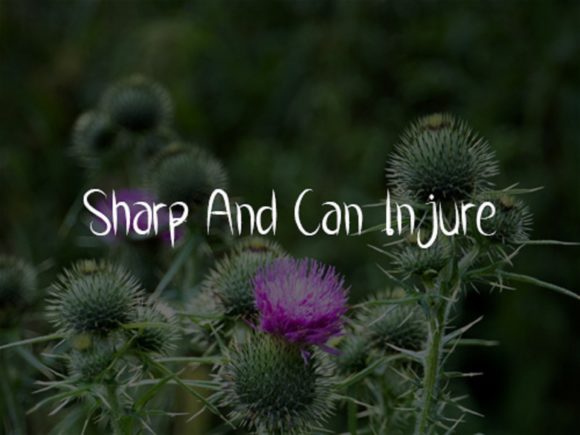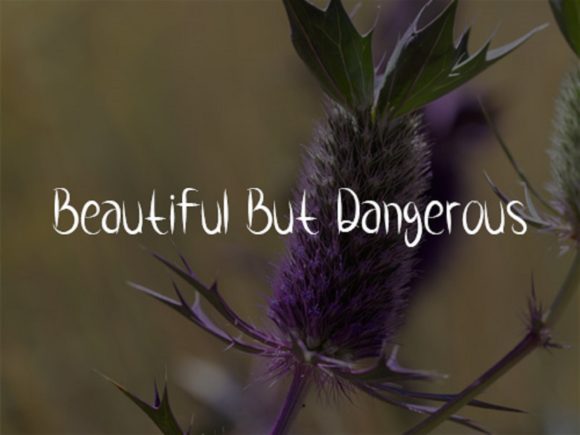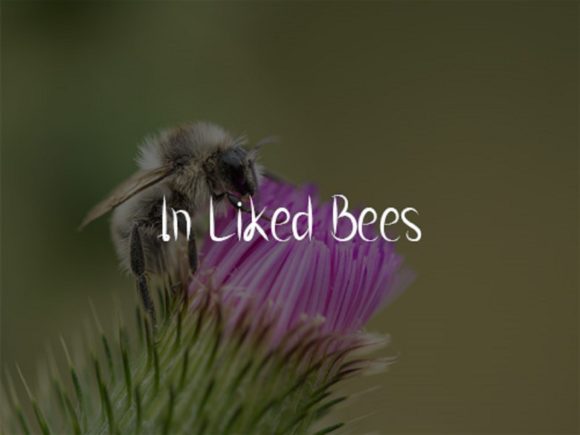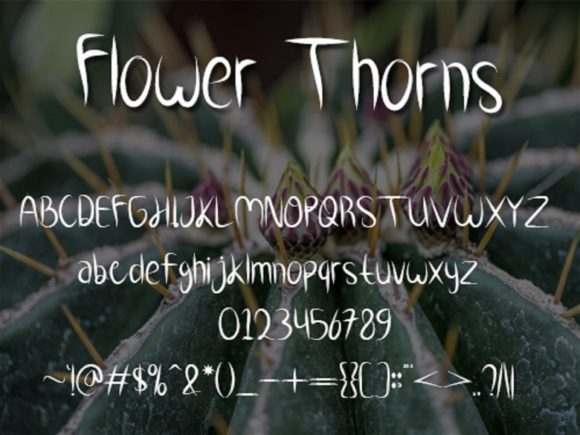
Introducing Flower Thorns Font: Elevate Your Designs with Elegance
Are you on the hunt for a font that adds a touch of luxury and sophistication to your design projects? Look no further than Flower Thorns Font, a beautiful light handwritten font that is sure to make your creations stand out. With its unique feel and stunning impact, Flower Thorns Font is the perfect addition to any designer’s toolkit.
The Beauty of Flower Thorns Font
Flower Thorns Font is a gorgeous light handwritten font that boasts a distinctive and elegant style. Its delicate lines and curves give it a whimsical feel that’s perfect for a wide range of design projects, from wedding invitations and branding materials to social media graphics and more. Whether you’re a professional designer or a crafty DIY enthusiast, Flower Thorns Font is sure to inspire your creativity and help you create stunning visuals.
What Sets Flower Thorns Font Apart
So, what makes Flower Thorns Font so special? For starters, its unique feel is unlike anything you’ve seen before. The font’s light, airy quality gives it a sense of elegance and sophistication that’s hard to find in other fonts. Plus, its handwritten style adds a touch of warmth and personality to any design project. Whether you’re looking to create a luxurious brand identity or simply want to add some visual interest to your social media graphics, Flower Thorns Font is the perfect choice.
Uses for Flower Thorns Font
Flower Thorns Font is incredibly versatile, making it perfect for a wide range of design projects. Here are just a few ideas to get you started:
- Wedding Invitations: Add a touch of elegance and sophistication to your wedding invitations with Flower Thorns Font. Its delicate lines and curves make it perfect for formal wedding designs.
- Branding Materials: Create a luxurious brand identity with Flower Thorns Font. Its unique feel and stunning impact make it perfect for logos, business cards, and other branding materials.
- Social Media Graphics: Add some visual interest to your social media graphics with Flower Thorns Font. Its light, airy quality makes it perfect for creating eye-catching graphics that will help your brand stand out.
- Stationery: Create beautiful stationery with Flower Thorns Font, including letterheads, notecards, and more.
Tips for Using Flower Thorns Font
Here are a few tips for getting the most out of Flower Thorns Font:
- Pair it with bold fonts: Flower Thorns Font is a light, elegant font, so it’s best paired with bold fonts that will create contrast and visual interest.
- Use it sparingly: While Flower Thorns Font is beautiful, it’s best used sparingly. Use it for headings or key phrases to create visual interest and add emphasis.
- Experiment with colors: Flower Thorns Font looks beautiful in a range of colors, from soft pastels to rich jewel tones. Experiment with different colors to find the perfect look for your design project.
Flower Thorns Font is a beautiful light handwritten font that is sure to elevate your design projects with elegance and sophistication. Its unique feel and stunning impact make it perfect for a wide range of design projects, from wedding invitations and branding materials to social media graphics and more. With its versatility and beauty, Flower Thorns Font is a must-have font for any designer or crafty DIY enthusiast.